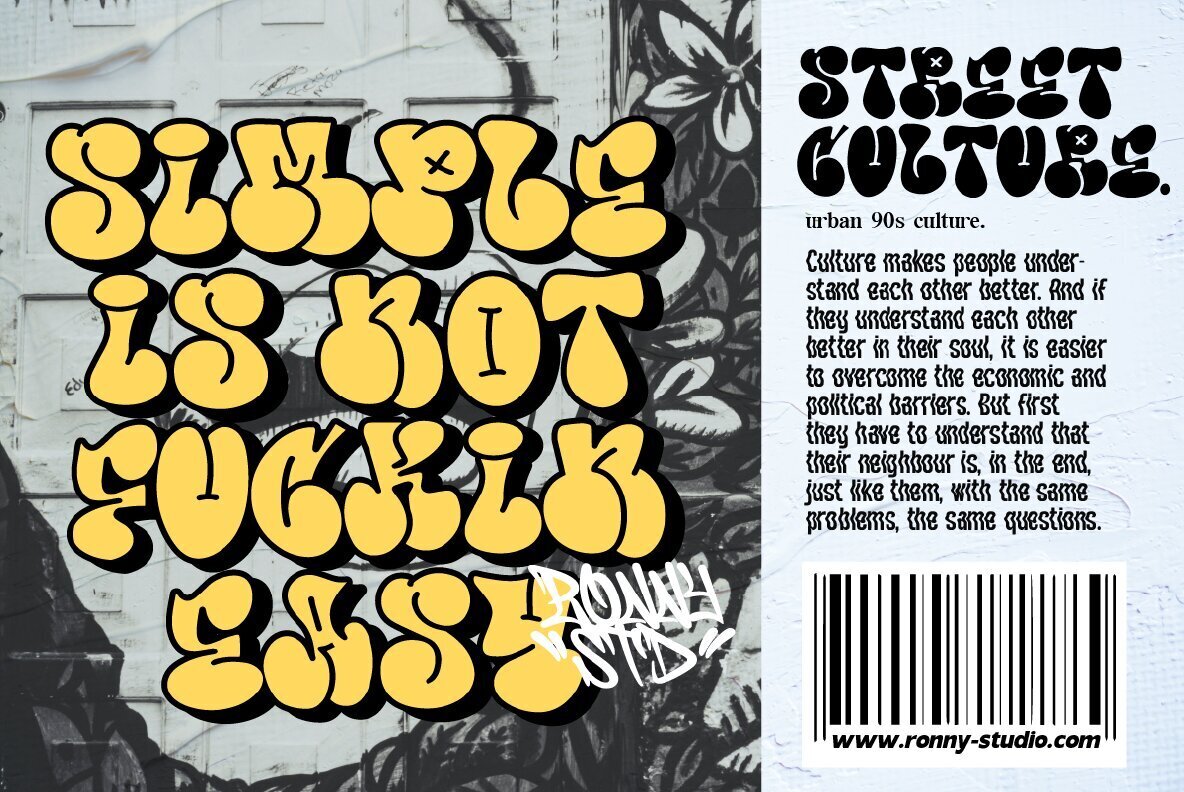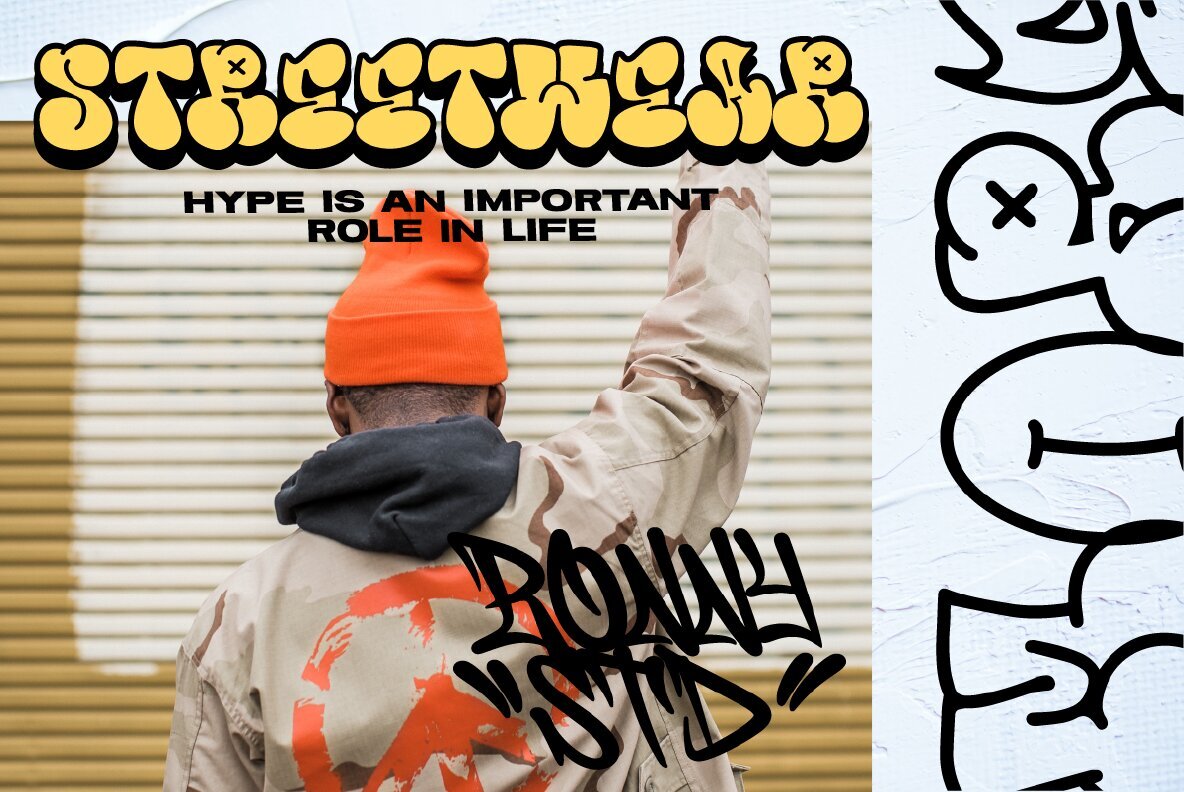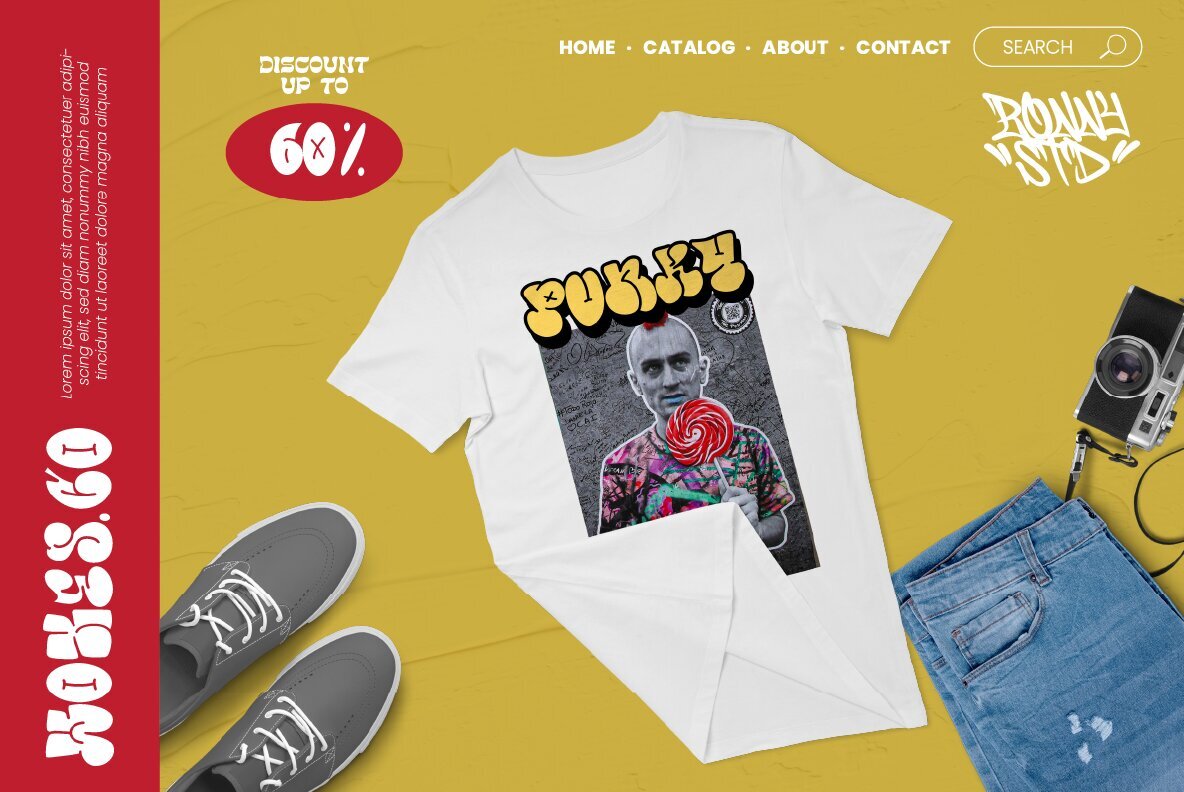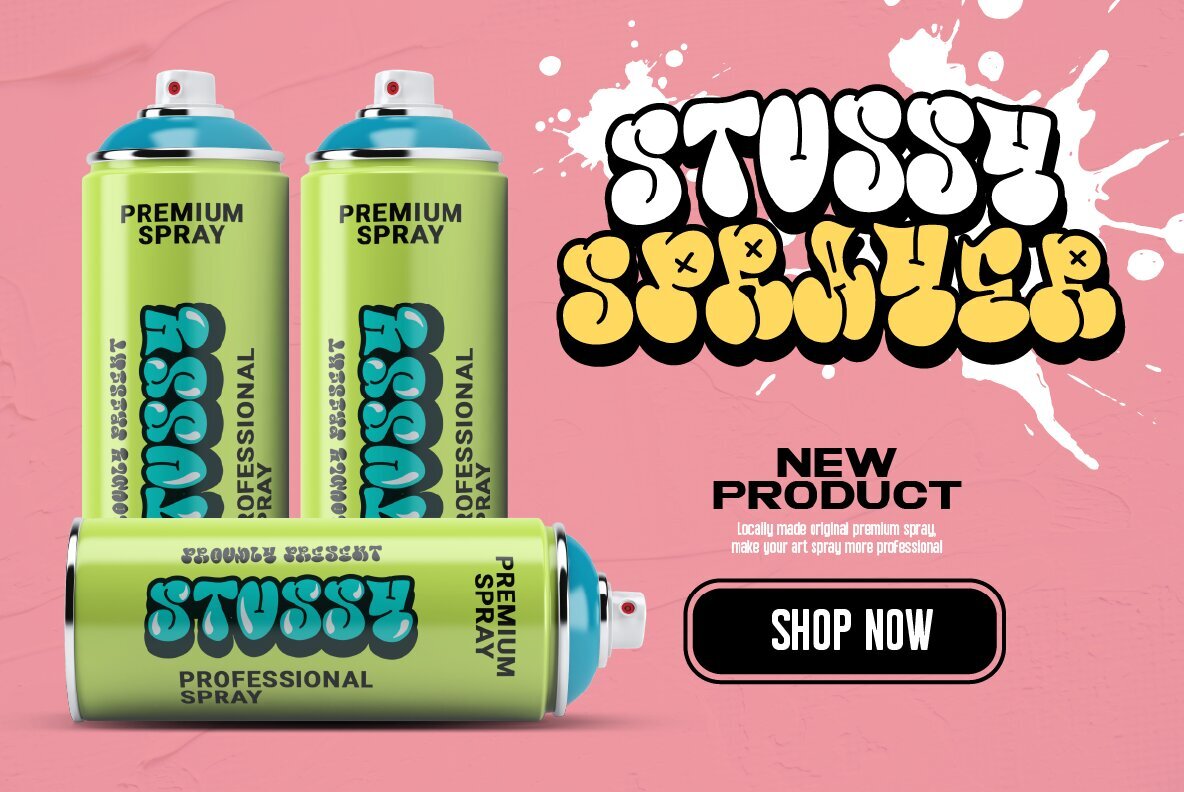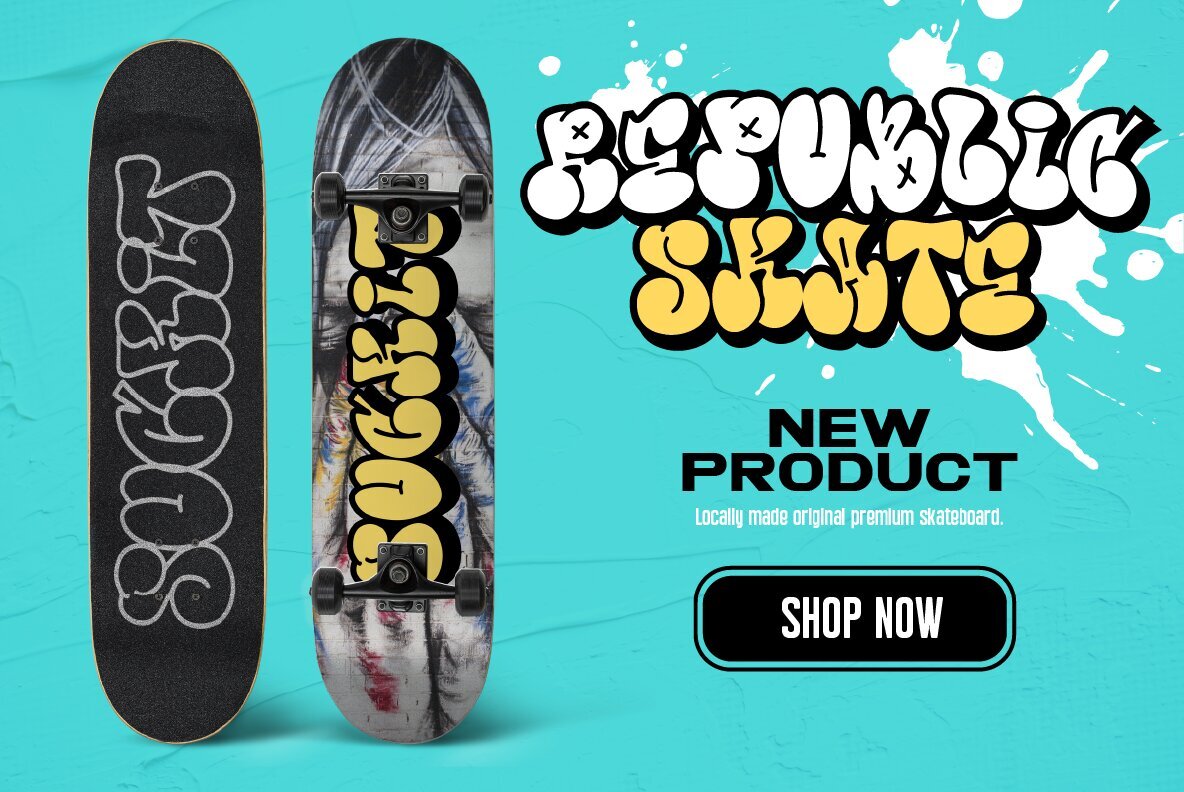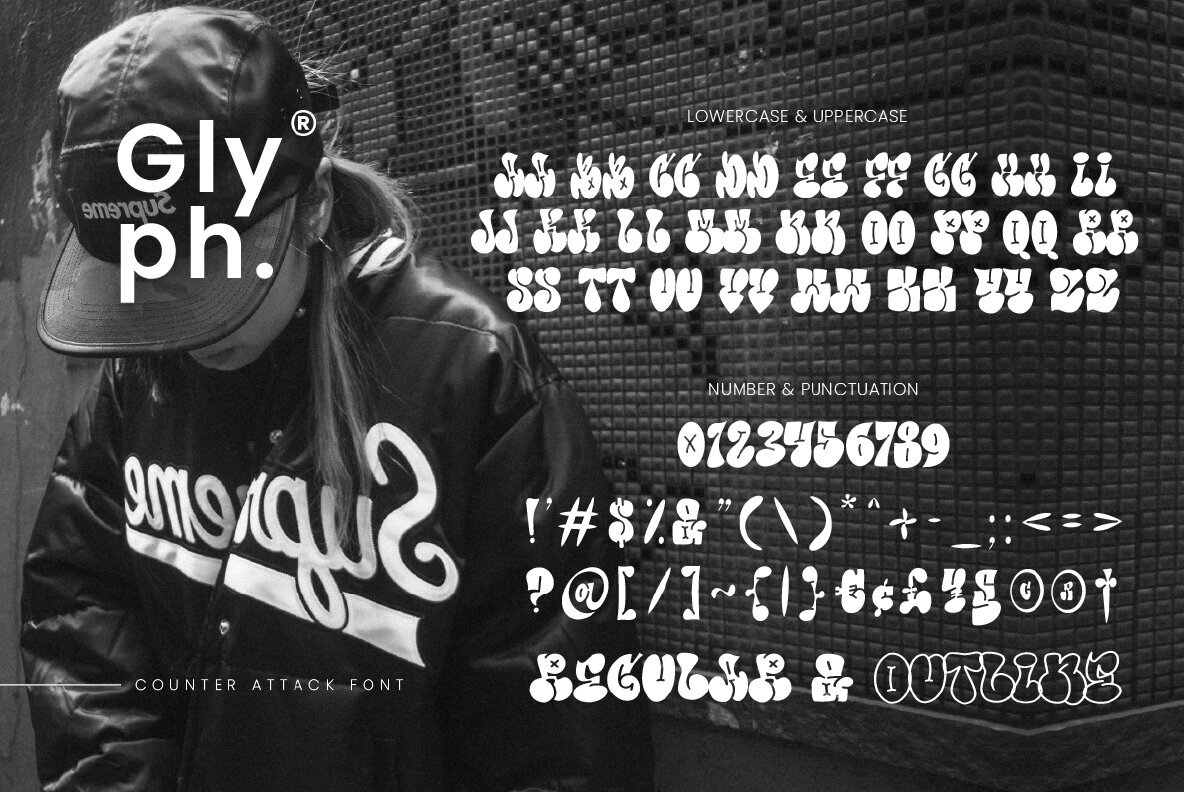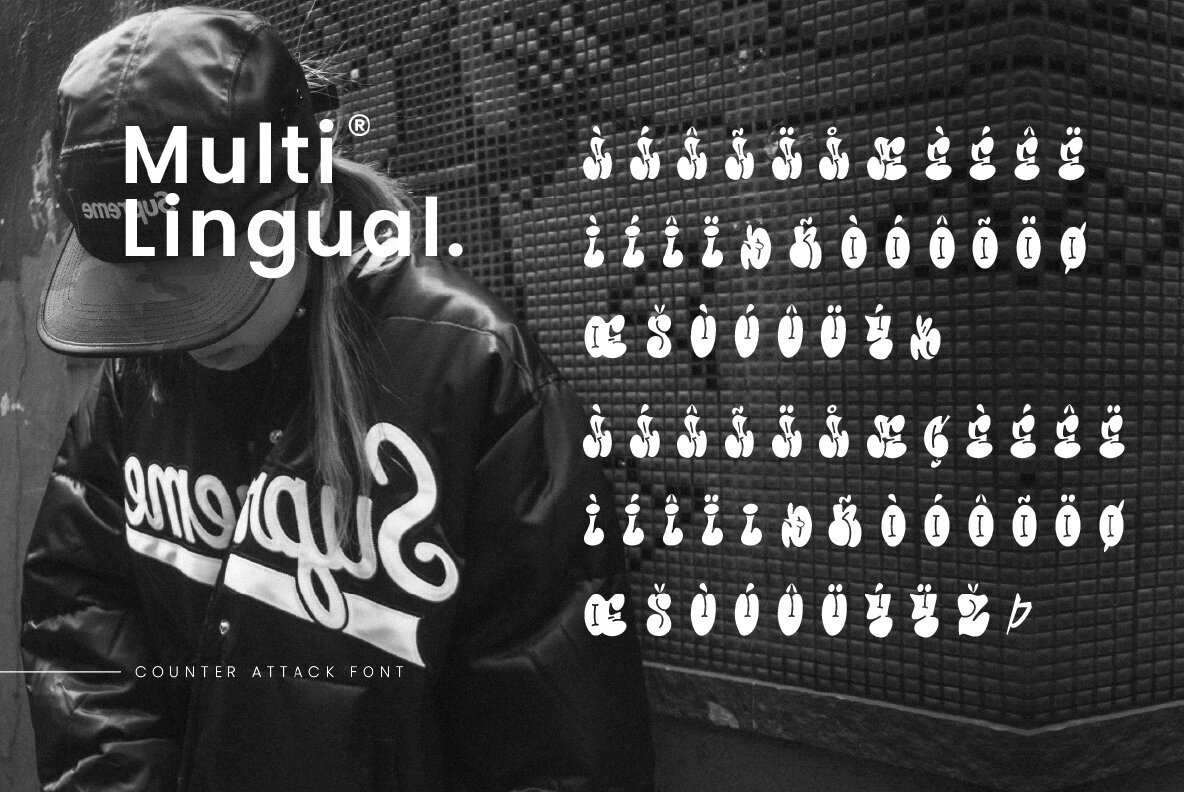
More Than Life Font
Give your design project a unique graffiti twist with the More Than Life Bubble font. Its three-dimensional, bubbly lettering makes it instantly recognizable and perfect for creating visually captivating tags to mark one's presence or show off their style. This remarkable typography brings vibrant street art vibes that will give any composition an artistic flair!